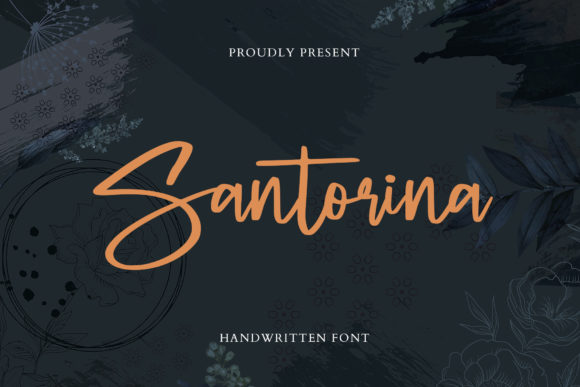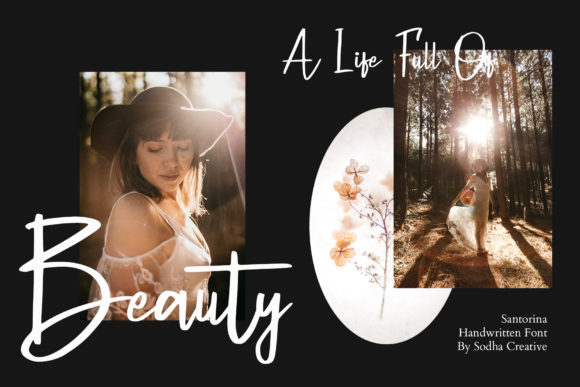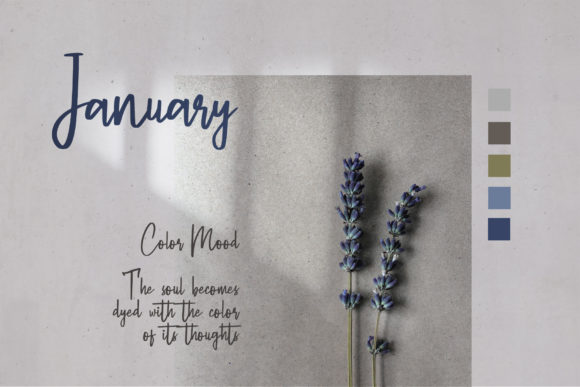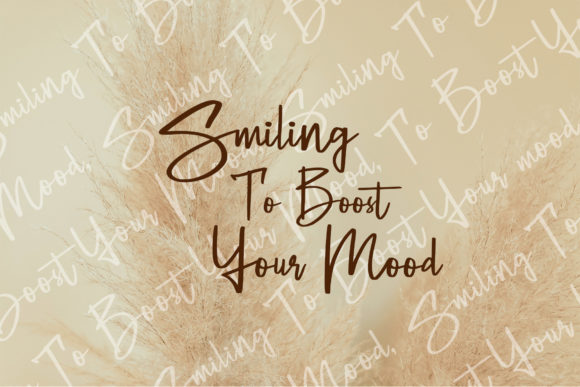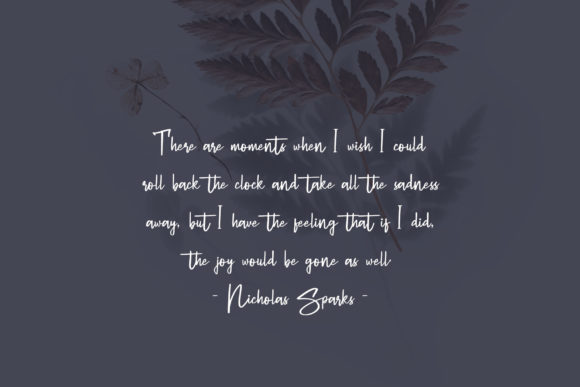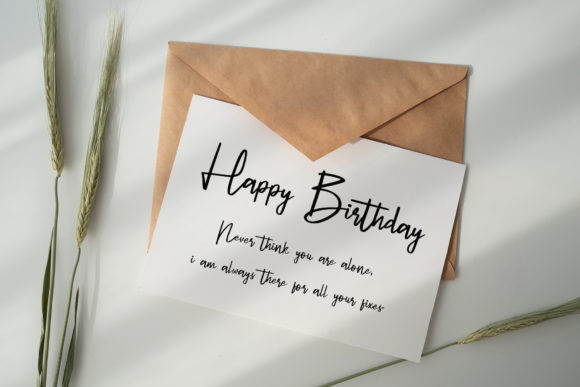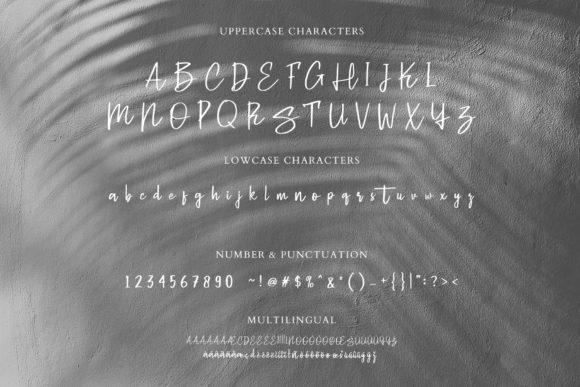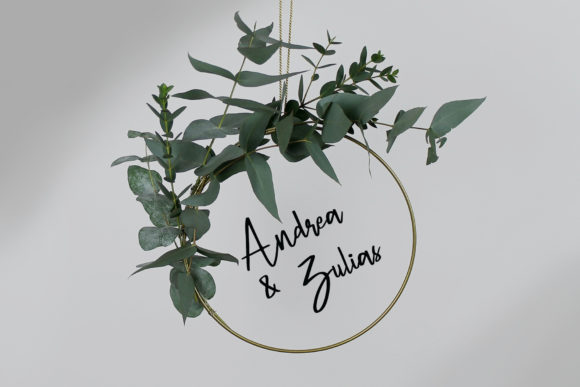
Santorina Font
About Santorina Font
Introducing “Santorina,” a lovely handwritten font that brings a touch of charm and elegance to your creative projects. With its versatile and delightful style, Santorina is perfect for a wide range of applications, including logos, branding, invitations, posters, apparel, greeting cards, stationery, packaging, and more.
Santorina’s unique letterforms exude a sense of warmth and personality, making it an ideal choice for projects that require a personal and authentic touch. Whether you’re designing a logo for your business, creating branded materials, or crafting invitations for a special event, Santorina adds a touch of elegance and sophistication that captures attention.
The versatility of Santorina allows it to adapt seamlessly to various design themes and styles. Its elegant yet approachable nature makes it suitable for both formal and informal projects. Whether you’re going for a romantic and whimsical look, a classic and timeless aesthetic, or a modern and minimalist approach, Santorina effortlessly complements your design vision.
The wide range of applications for Santorina makes it a go-to choice for designers and creatives. Its legibility and clear letterforms ensure that your message is conveyed effectively, whether it’s in headlines, titles, or body text. Santorina’s smooth and flowing strokes create a harmonious rhythm that adds visual appeal and readability to your designs.
Santorina’s beauty lies in its versatility. It can be used as a standalone font or combined with other typefaces to create unique and eye-catching compositions. Pair it with serif or sans-serif fonts to create interesting contrasts or use it as a focal point to add a personal and handwritten touch to your designs.
Additionally, Santorina is highly suitable for projects that require a feminine and delicate aesthetic. Its graceful curves and elegant lines make it a popular choice for wedding invitations, greeting cards, and other projects aimed at capturing the essence of romance and beauty.
As you work with Santorina, you’ll appreciate its attention to detail and the effortless charm it brings to your designs. Its smooth and natural flow reflects the beauty of handwritten scripts, evoking a sense of authenticity and human touch.
In summary, Santorina is a lovely handwritten font that adds charm and elegance to a wide variety of projects. With its versatility, legibility, and delightful style, Santorina is perfect for logos, branding, invitations, posters, apparel, greeting cards, stationery, packaging, and much more. Embrace Santorina and let its beauty and versatility elevate your designs to new heights.